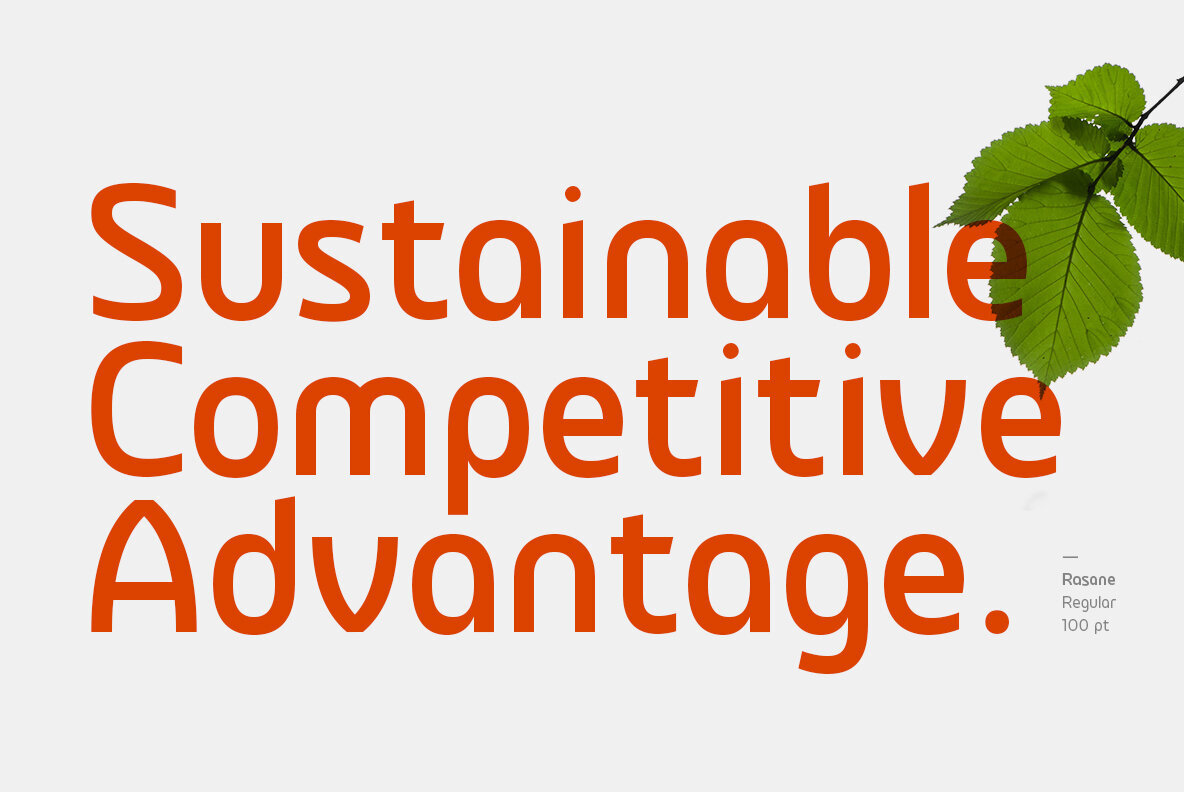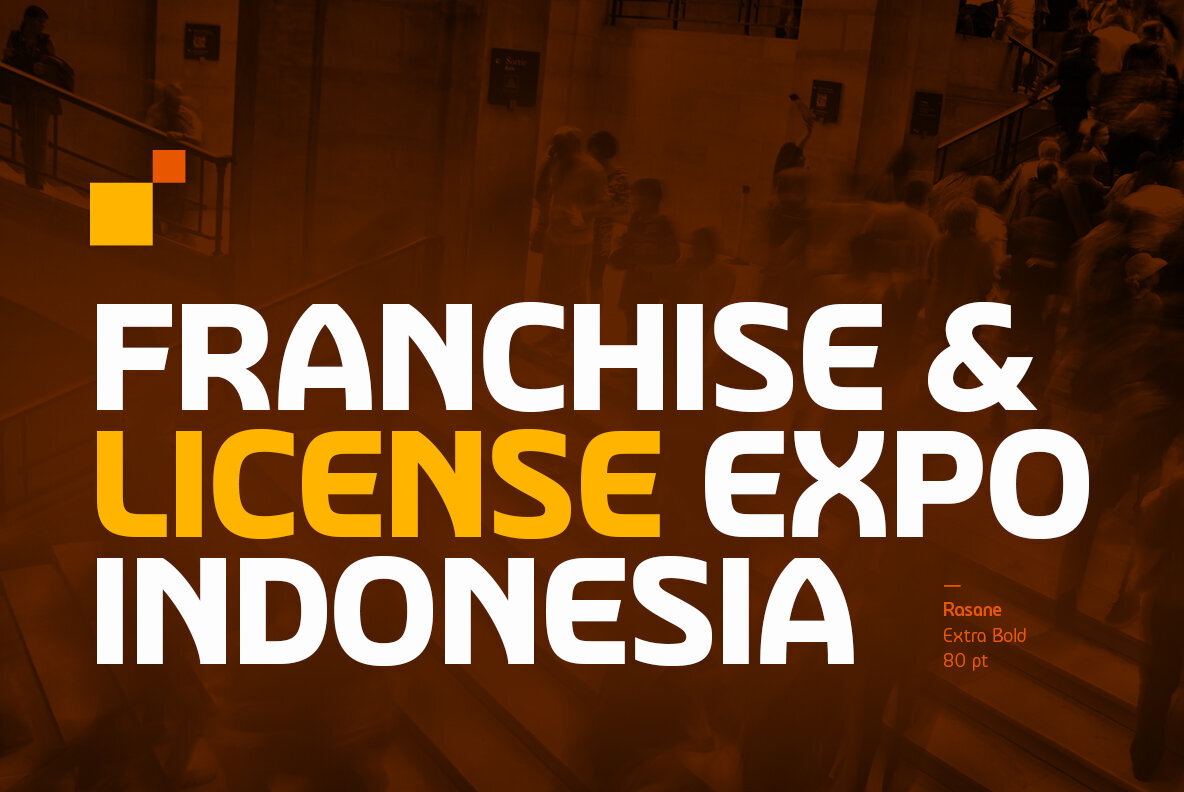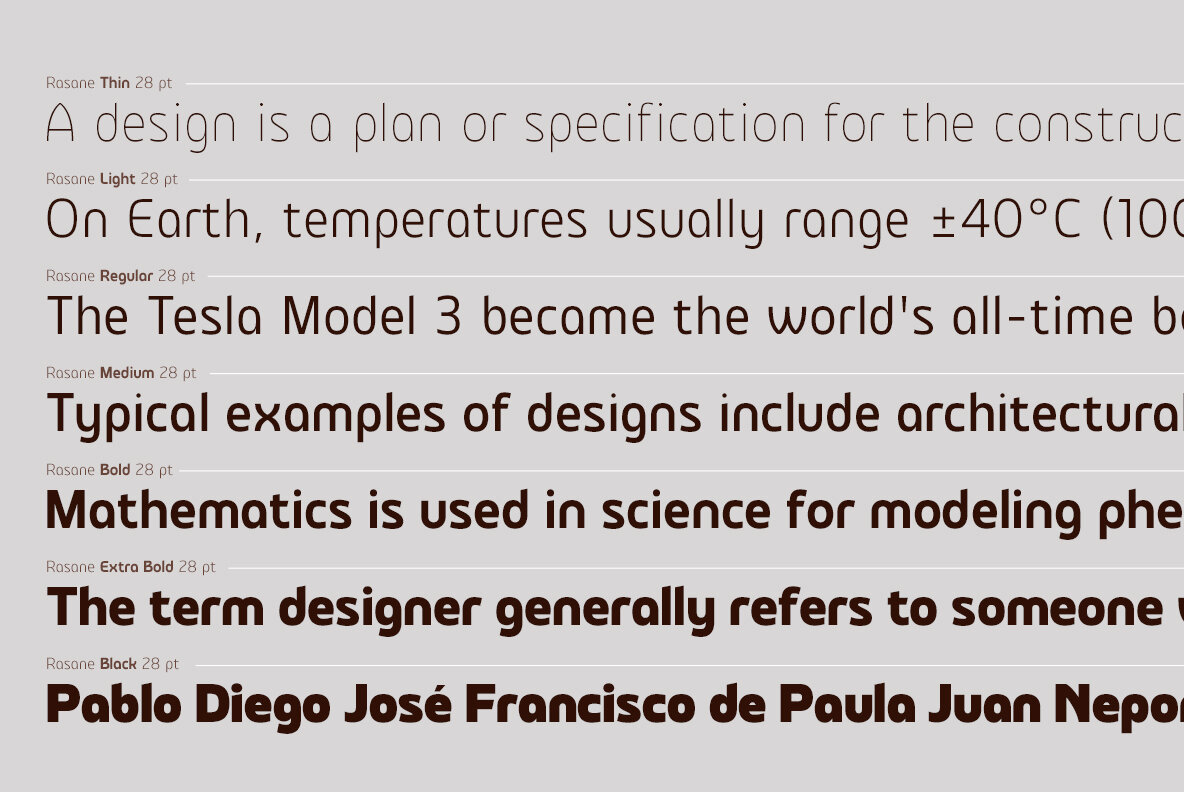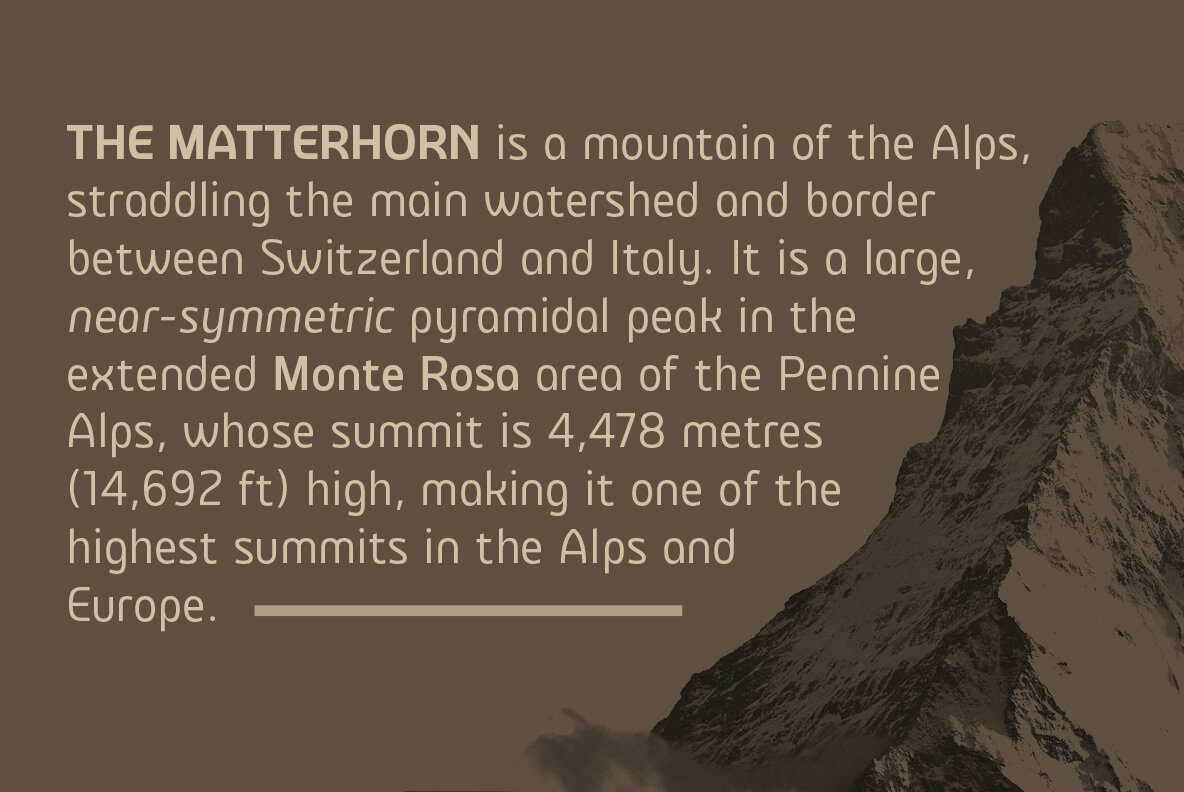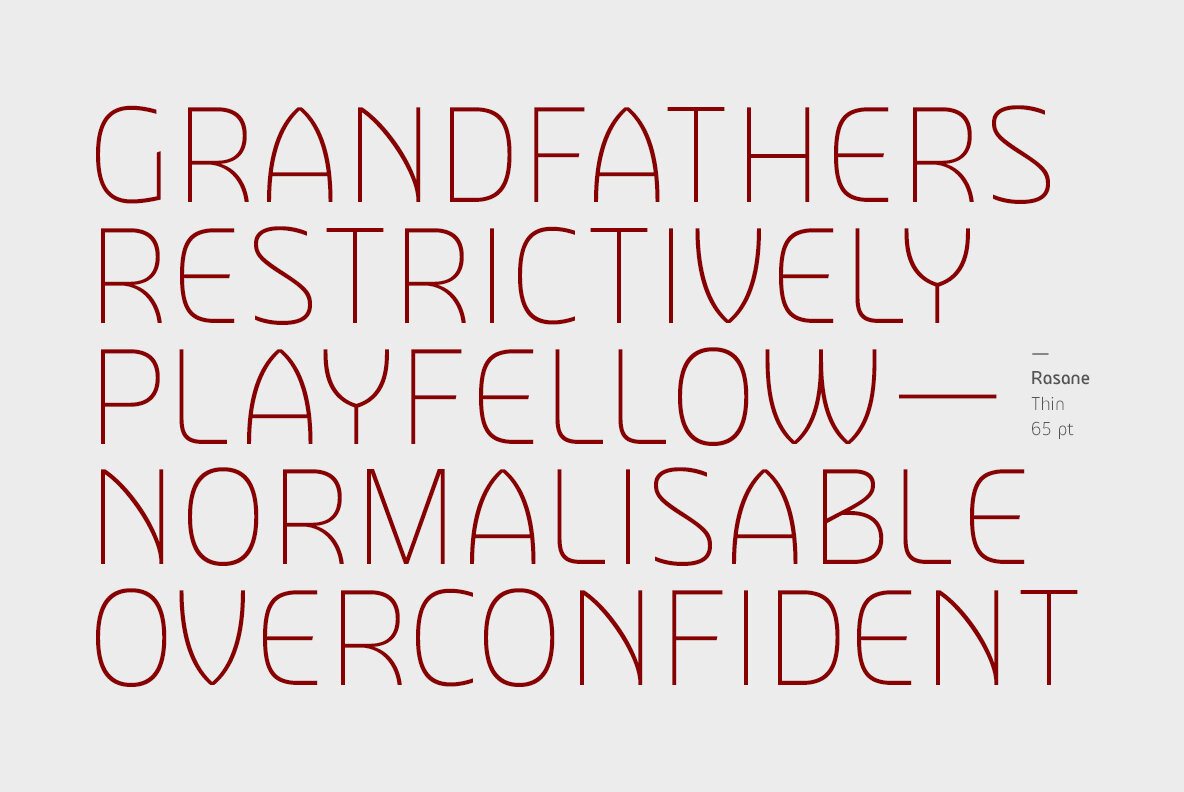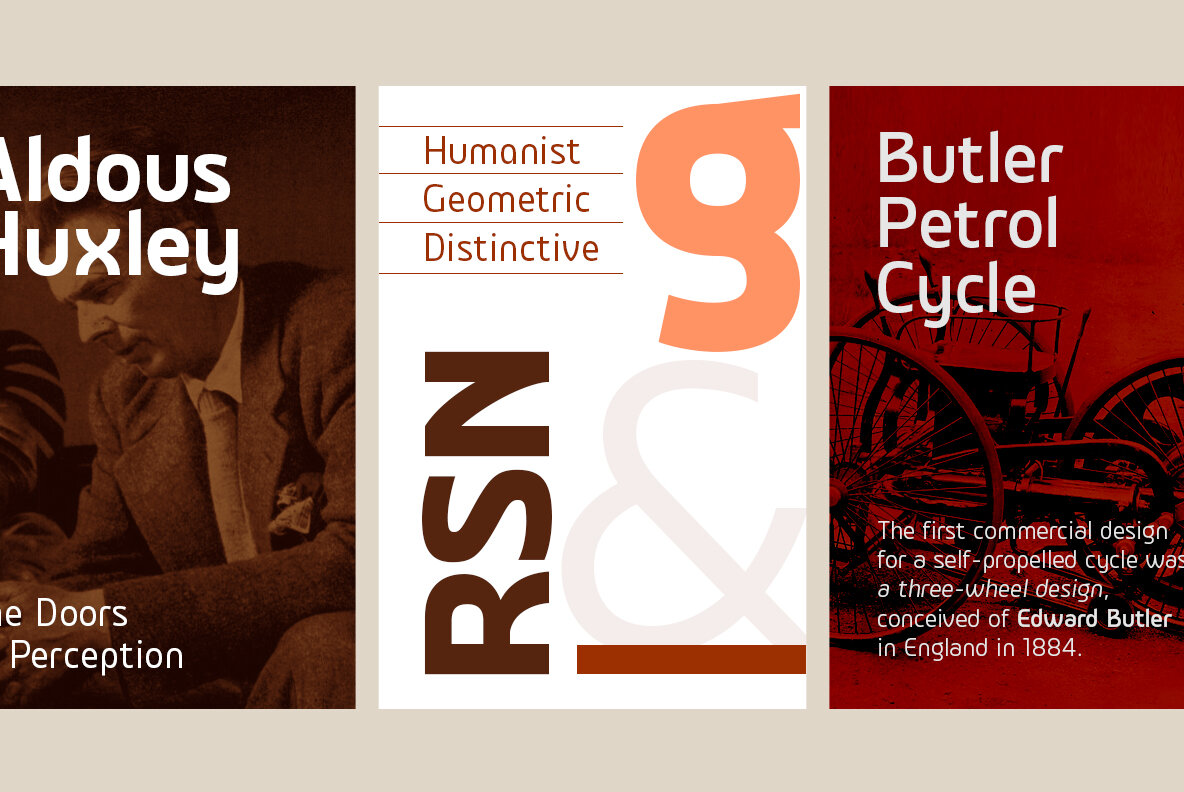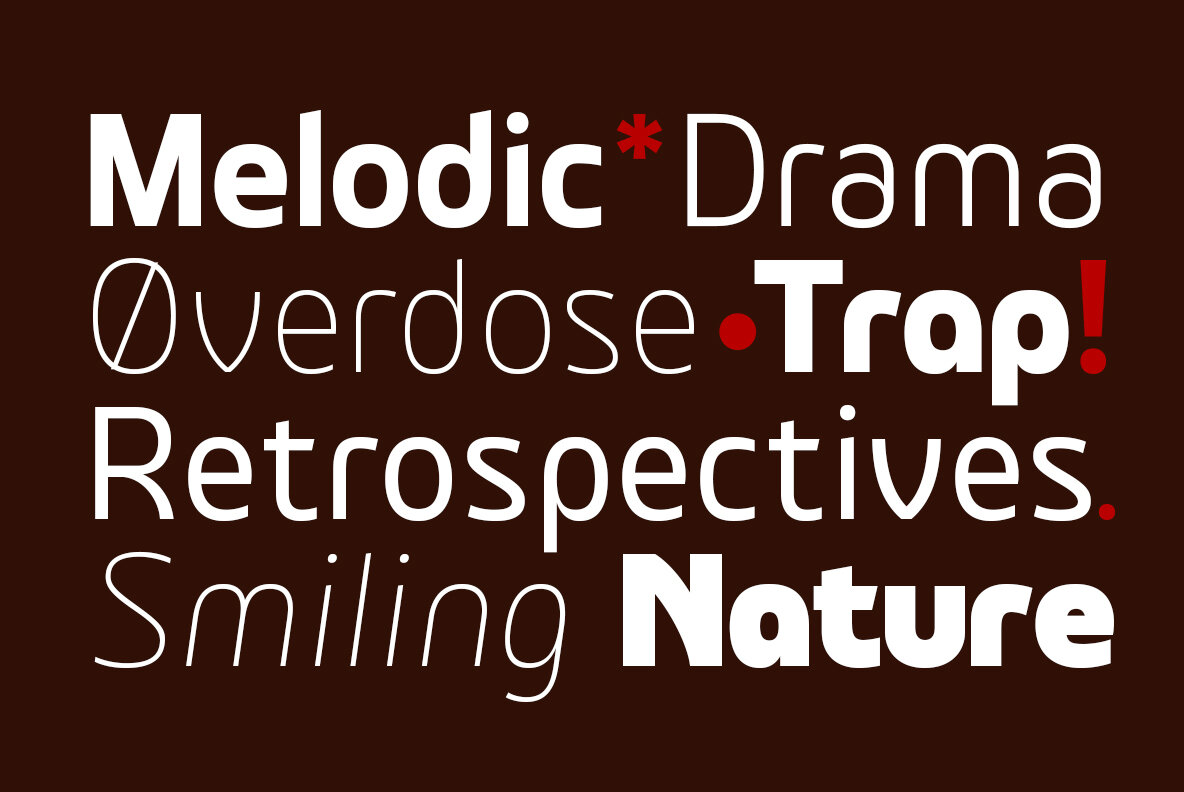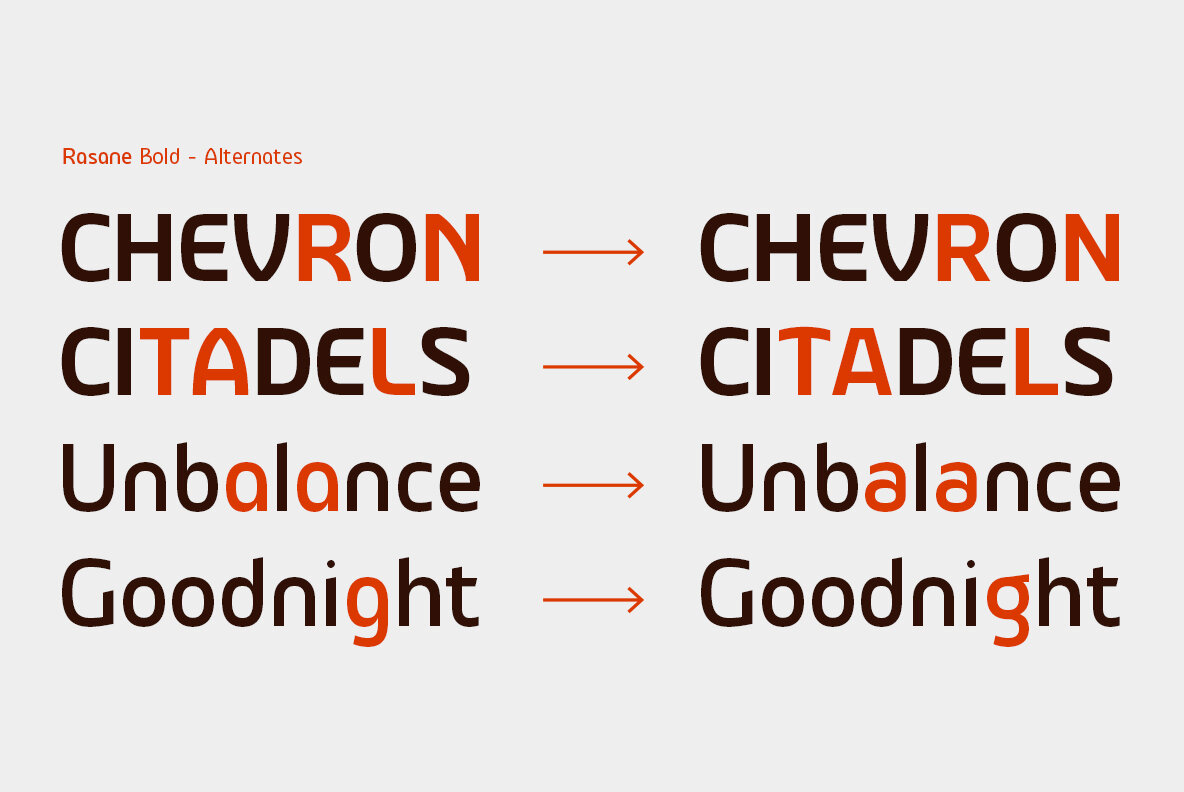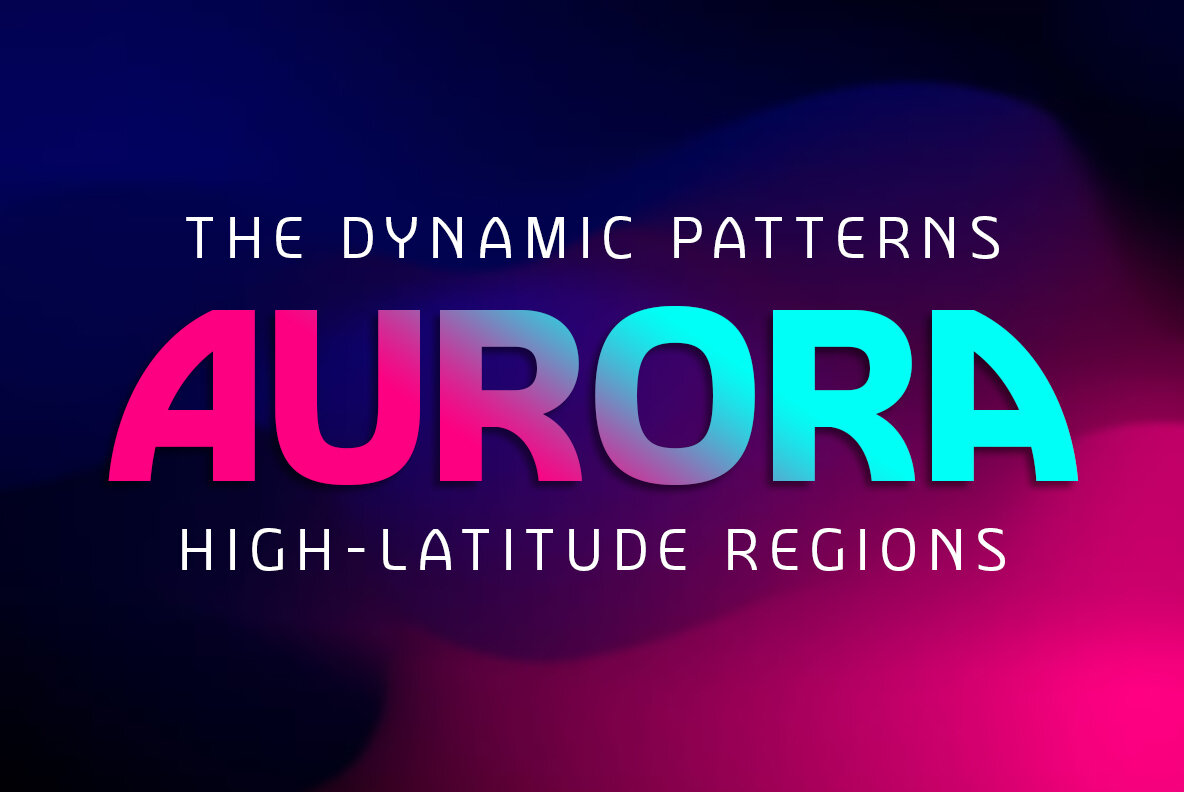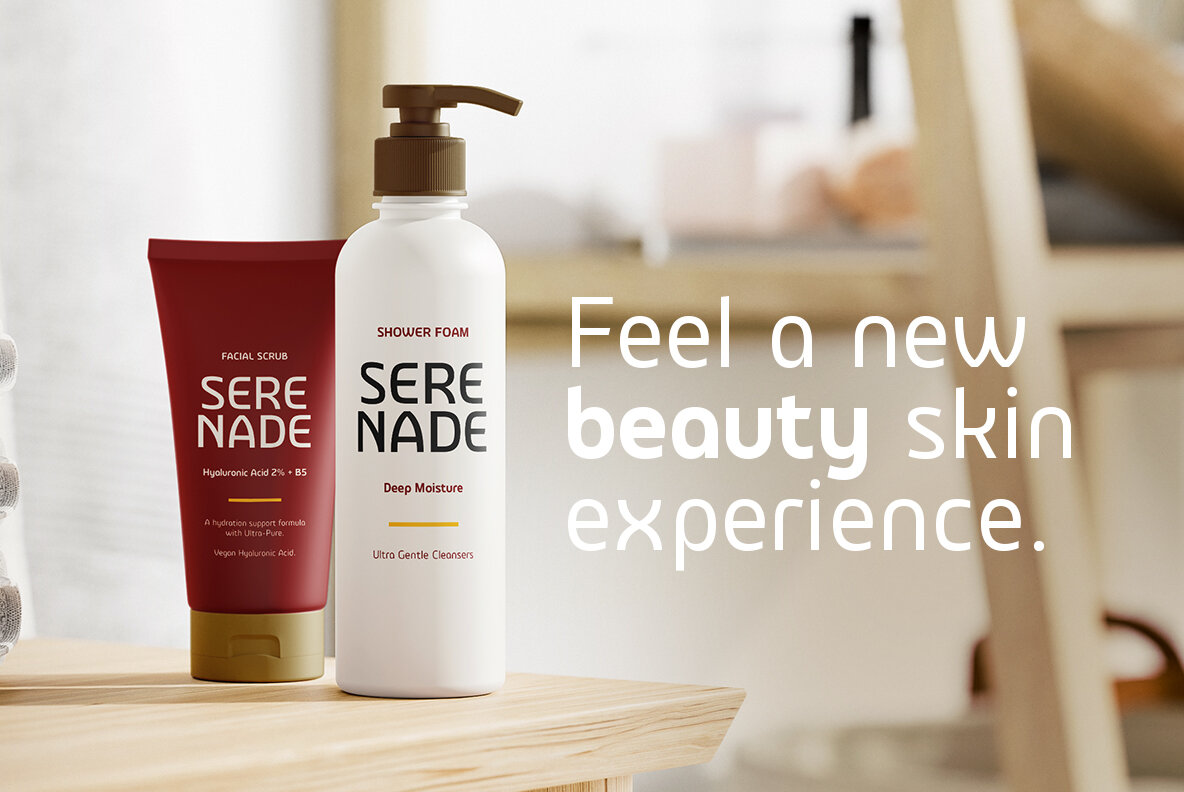
Rasane Font
Rasane font has a distinct personality where the curved geometric shapes give a friendly face to various uses. At the same time, the pointed end of the stem gives a dynamic feel.
Rasane comes with over 400 characters, making it possible to use fonts in many different languages. The family consists of 14 fonts of 7 weights plus matching italics.
The font works well on display and small sizes. Rasane is the perfect choice for headlines, packaging, posters, logotypes, signs, websites, brands and more!